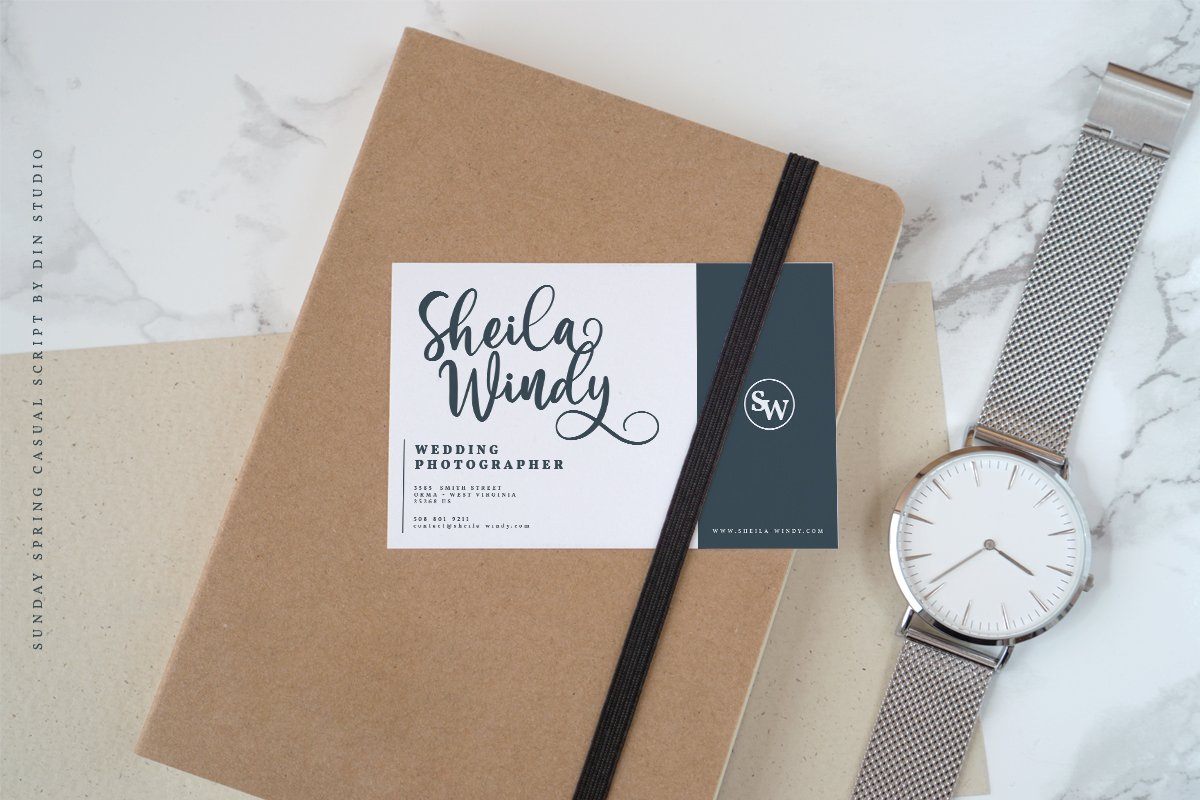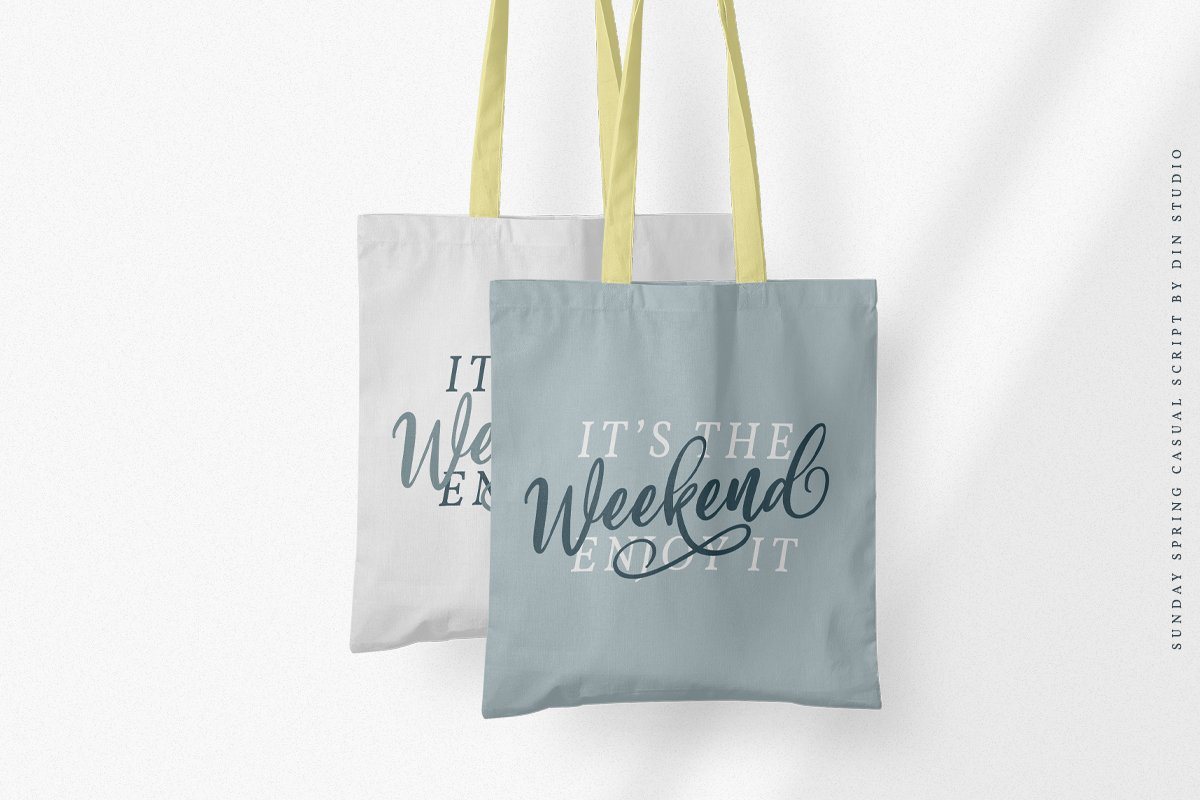
About Sunday Spring Script
Say Hello to the Sunday Spring Chic Brush Font. Made from natural hand brush. it will make your design project more beautiful. The font is suitable for any design like branding, fashion, print template, quotes, wedding and etc. Includes : Sunday Spring (OTF,TTF,WOFF) Features ; 110 Beautiful Alternates 4 Beautiful Ligatures PUA encoded Multilingual Support Numerals and Punctuation (OpenType Standard) Full Support Thanks for visiting and purchasing my font Donis M Din Studio